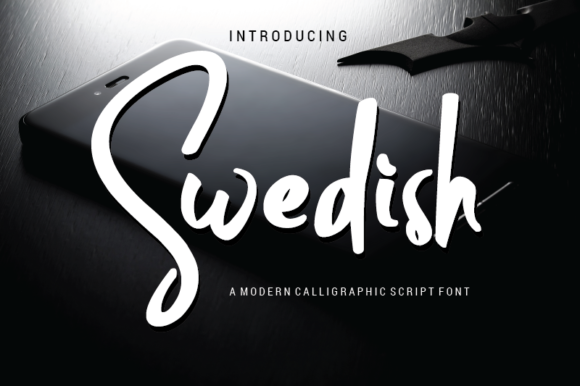
In the realm of typography, Swedish Font stands tall, an exquisite script font that captivates hearts and breathes life into words. Created by the ingenious Smart Studio, this font exudes an aura of unparalleled elegance, ready to transform your creative endeavors into masterpieces.
With its graceful curves and delicate strokes, Swedish Font possesses an inherent charm that's both timeless and captivating. Its sweeping lines dance across the page, evoking a sense of nostalgia and heartfelt emotion. Let Swedish Font carry your words, whether they be heartfelt messages, heartfelt mementos, or tender farewells.
Step into the realm of Swedish Font and witness the magic unfold. Its enchanting characters will elevate your designs, adding a touch of sophistication and heartfelt grace. From heartfelt letters to cherished memories, this font will lend its charm to every word you write.
Embrace the beauty of Swedish Font and watch your words blossom into works of art. Its versatility knows no bounds, making it the perfect choice for a wide array of projects. Let your creativity soar as you craft stunning invitations, heartfelt cards, or heartfelt mementos. With Swedish Font, your heartfelt expressions will resonate with a depth that words alone cannot convey.
Seize the moment and dive into the world of Swedish Font. Discover the endless possibilities it holds, and let its elegance ignite your creative spirit. Transform your heartfelt messages into visual masterpieces that will leave a lasting impression on all who behold them.